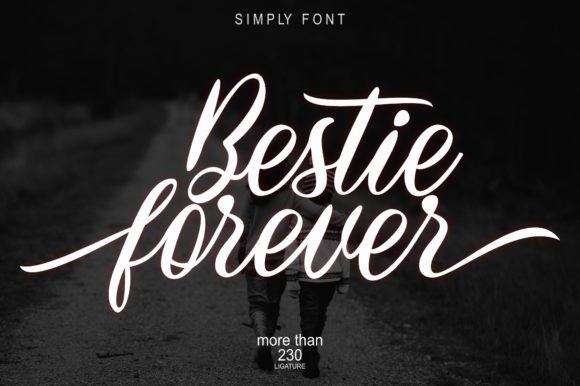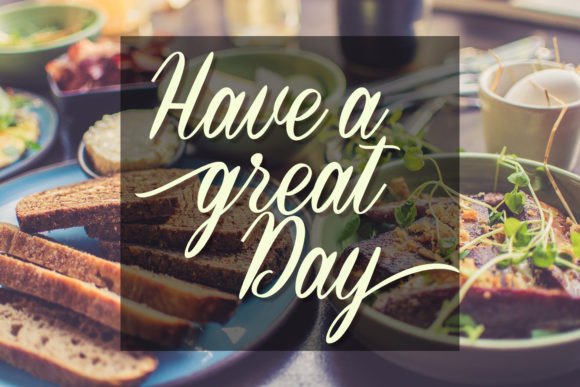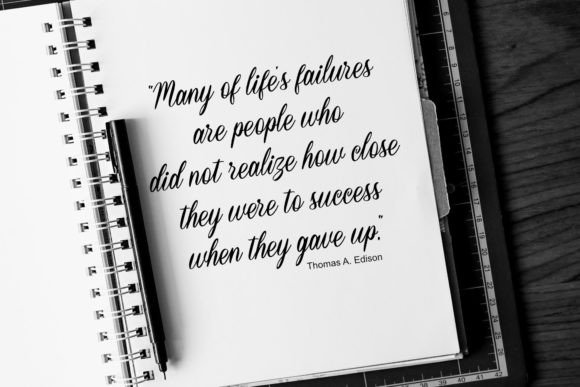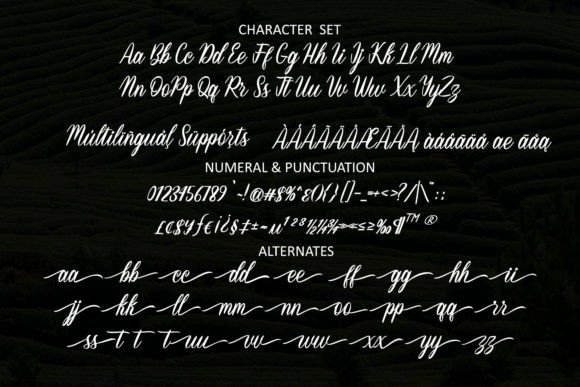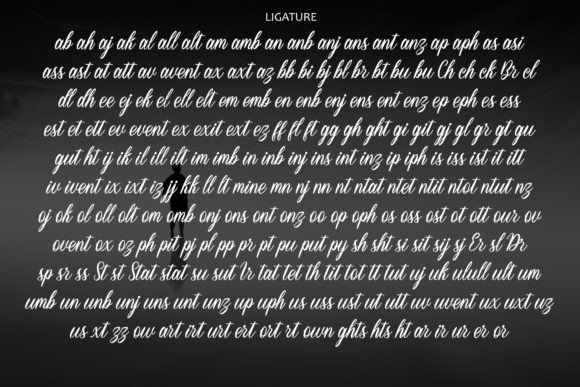
About Bestie Forever Font
Bestie Forever is a delicate, elegant, and flowing handwritten font. It has beautiful and well-balanced characters, and as a result, it matches a wide pool of designs. This font is PUA encoded which means you can access all glyphs and swashes with ease!